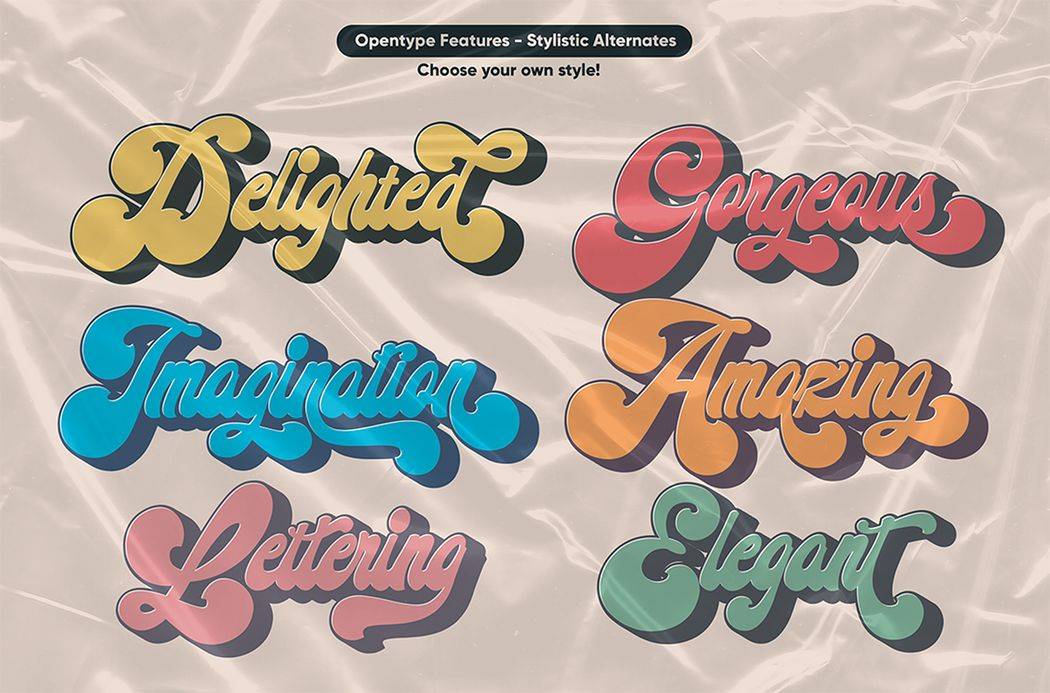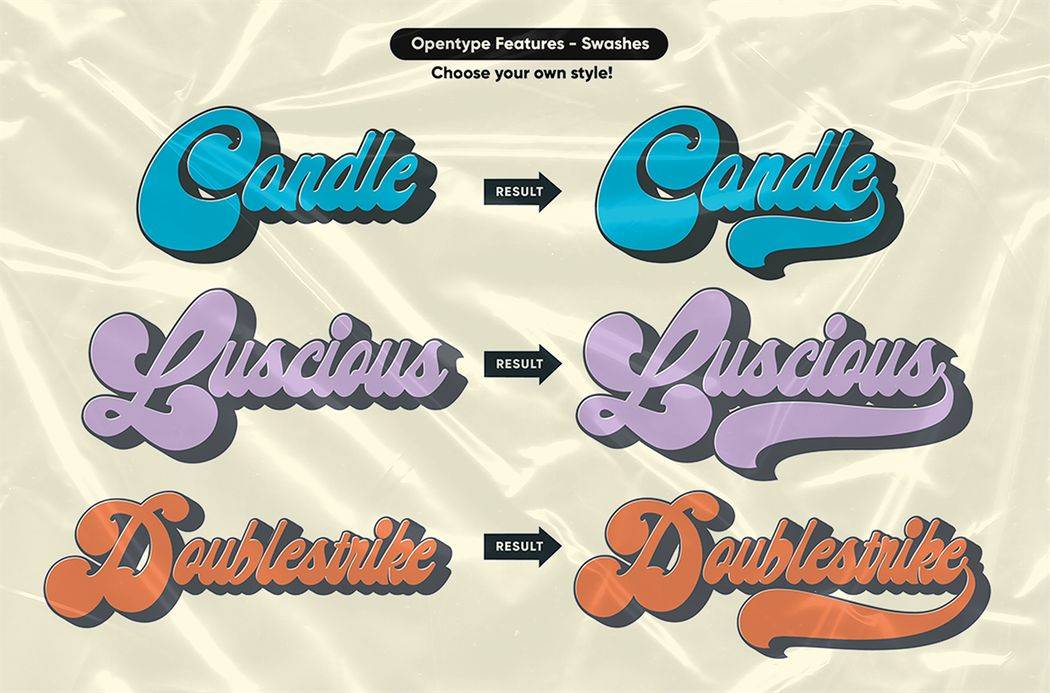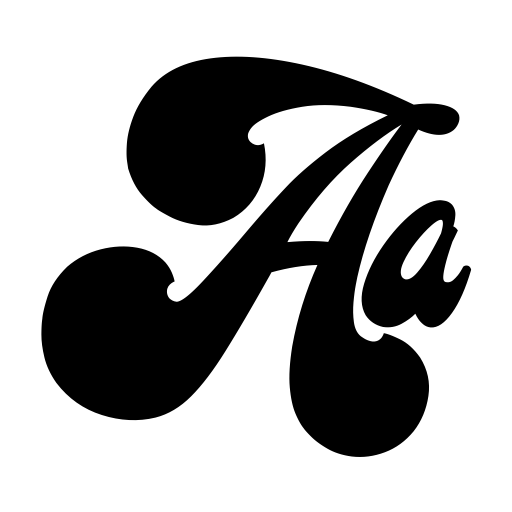
Midway is a bold, decorative script font with a playful and retro vibe, featuring thick, rounded strokes and expressive curves that create a strong visual impact. Its dense, compact letterforms and dynamic flow make it ideal for eye-catching headlines, logos, and branding projects that seek a vintage, fun, and energetic personality. This font works best in display settings where its unique style can shine without sacrificing readability.
Midway Font
About Midway Font